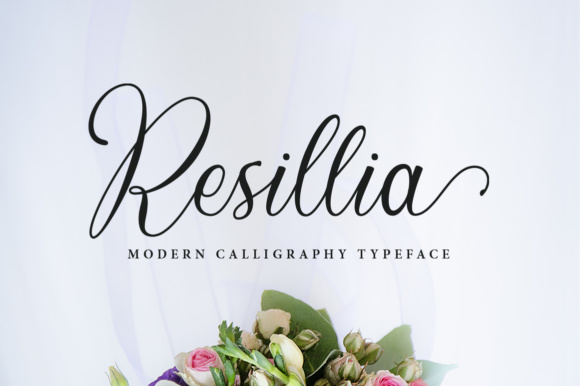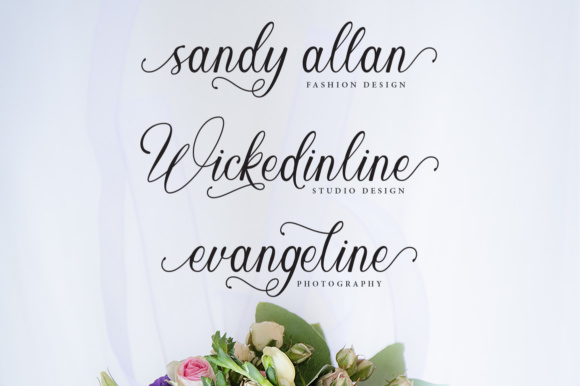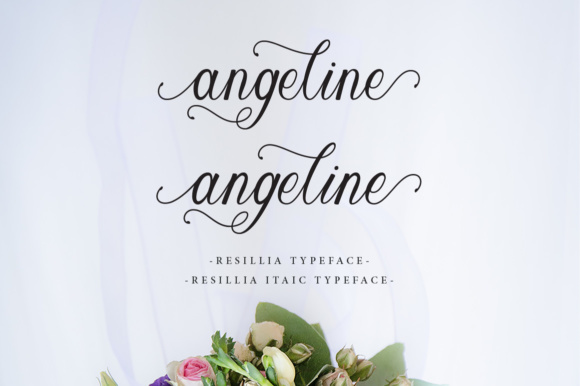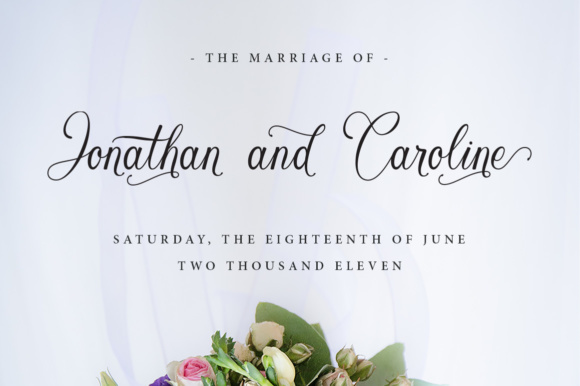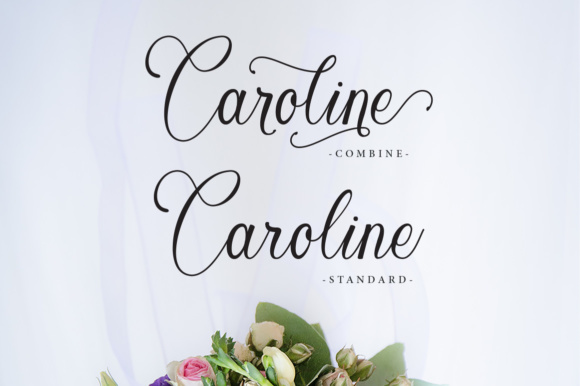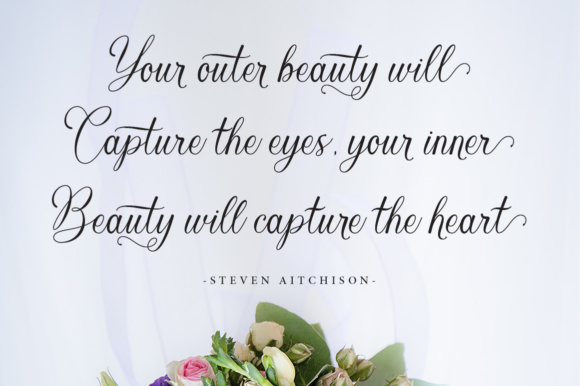
Resillia Script Font
About Resillia Script Font
The Resillia is a modern calligraphy font with an elegant signature style. It comes in a regular and Italic version which gives you the opportunity to create amazing, unique designs!